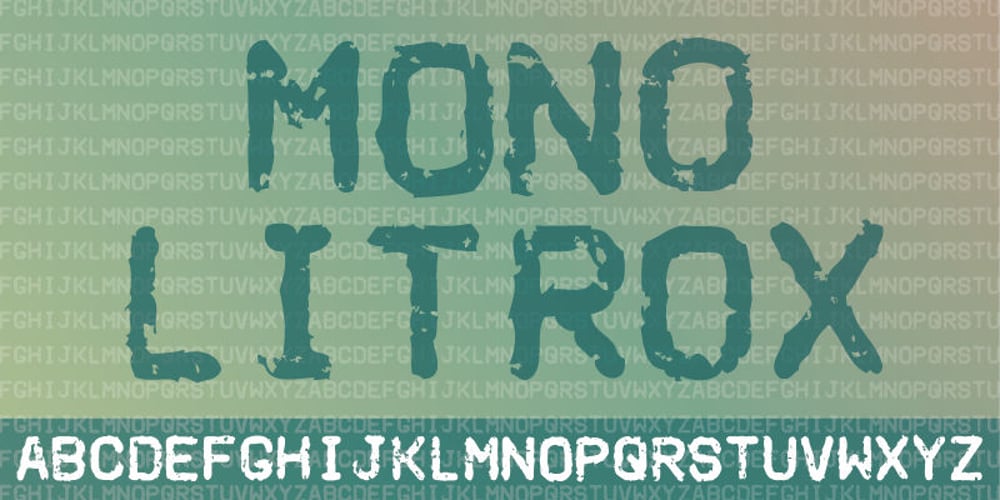
Mono Litrox
Mono Litrox font
Mono Litrox Font Family was designed by Jakob Fischer and published by PizzaDude.dk. Mono Litrox contains 1 styles and family package options. A wrecked, monospaced font containing 273 ligatures, alternate letters and unique accented characters! You will need to use OpenType supporting applications to use the autoligatures.